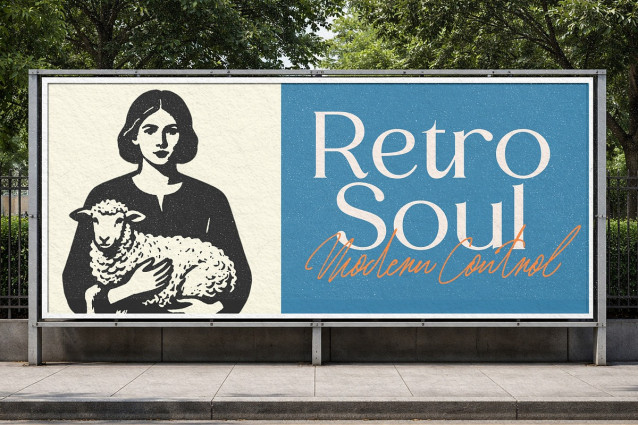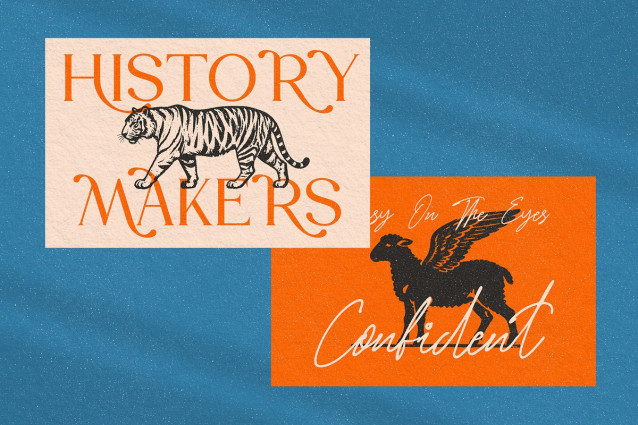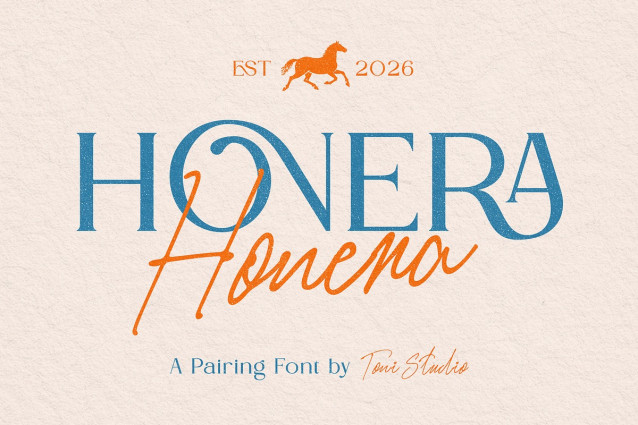
Honera Font Duo
Honera Font Duo is a beautifully crafted font duo that combines a refined serif typeface with a flowing handwritten script. This pairing creates a perfect harmony between classic elegance and modern personality, making it ideal for sophisticated and stylish design projects. The serif font delivers structure, clarity, and timeless charm, while the script adds warmth, movement, and a personal touch. Together, they create a balanced and eye-catching typography combination suitable for premium branding and creative layouts. Honera is designed to give your projects a distinctive and memorable identity with effortless pairing built in.